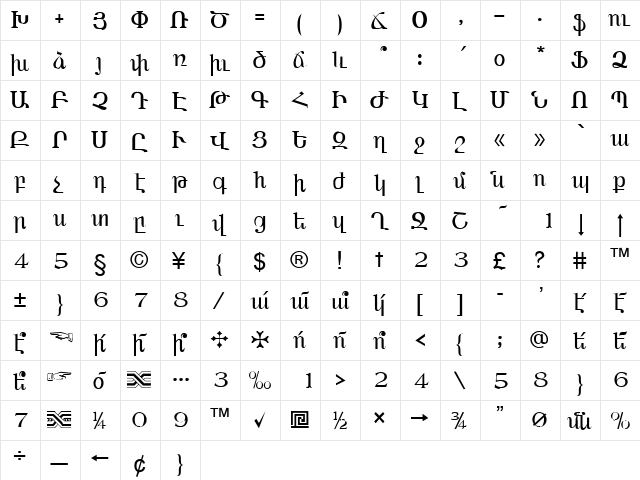
Alik Regular
Design Context for Alik Typeface
Alik offers clean, dependable letterforms without strong stylistic allegiance, making it a practical choice for designers who need flexibility.
Pro Tip: Use Alik in both headline and body roles to test its range before committing to a single application.